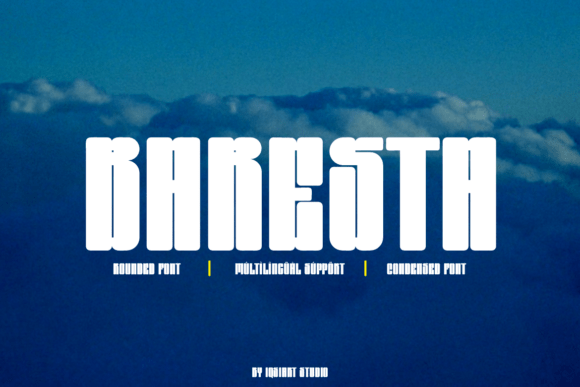
Introducing Baresta Font: The Bold and Assertive Sans Serif Font
When it comes to typography, the right font can make all the difference in the success of a design project. A font that can elevate any creation and make it stand out from the crowd is a valuable asset to any designer or creative. This is where Baresta Font comes in – a bold and assertive sans serif font that can take your designs to the next level.
Key Features of Baresta Font
- Bold and Assertive: Baresta Font is designed to make a statement. Its bold and assertive style makes it perfect for headlines, titles, and any other text that needs to grab attention.
- Sans Serif: The clean and modern sans serif design of Baresta Font makes it versatile and easy to read, even at small sizes.
- Highly Versatile: Baresta Font can be used for a wide range of design projects, from branding and advertising to packaging and digital media.
- Easily Readable: Despite its bold style, Baresta Font is surprisingly easy to read, making it perfect for body text as well as headlines.
How to Use Baresta Font
Baresta Font is an incredibly versatile font that can be used in a variety of design projects. Here are a few examples:
- Branding and Logo Design: Use Baresta Font to create a bold and memorable logo that will help your brand stand out.
- Advertising and Marketing: Baresta Font is perfect for headlines and titles in advertising and marketing materials, such as brochures, flyers, and posters.
- Packaging Design: Use Baresta Font to create eye-catching packaging that will help your product stand out on store shelves.
- Digital Media: Baresta Font can be used in digital media, such as website headers, social media graphics, and video titles.
Why Baresta Font is a Great Addition to Your Font Library
Having a well-stocked font library is essential for any designer or creative. Baresta Font is a great addition to any font library for several reasons:
- Unique Style: Baresta Font has a unique and distinctive style that will help your designs stand out from the crowd.
- Highly Versatile: Baresta Font can be used for a wide range of design projects, making it a valuable asset to any font library.
- Easily Readable: Despite its bold style, Baresta Font is surprisingly easy to read, making it perfect for body text as well as headlines.
How Baresta Font Compares to Other Fonts
Baresta Font is not the only bold and assertive sans serif font on the market. Here’s how it compares to other similar fonts:
- Montserrat: Like Baresta Font, Montserrat is a bold and modern sans serif font. However, Baresta Font has a more assertive style that makes it perfect for headlines and titles.
- Arial Black: Arial Black is a bold sans serif font that is similar to Baresta Font. However, Baresta Font has a more unique and distinctive style that sets it apart.
- Impact: Impact is a bold and assertive sans serif font that is similar to Baresta Font. However, Baresta Font has a more modern and clean design that makes it more versatile.
In conclusion, Baresta Font is a bold and assertive sans serif font that can elevate any design project. Its unique style, versatility, and readability make it a valuable asset to any font library. Whether you’re a designer, creative, or just starting out, Baresta Font is definitely worth checking out.